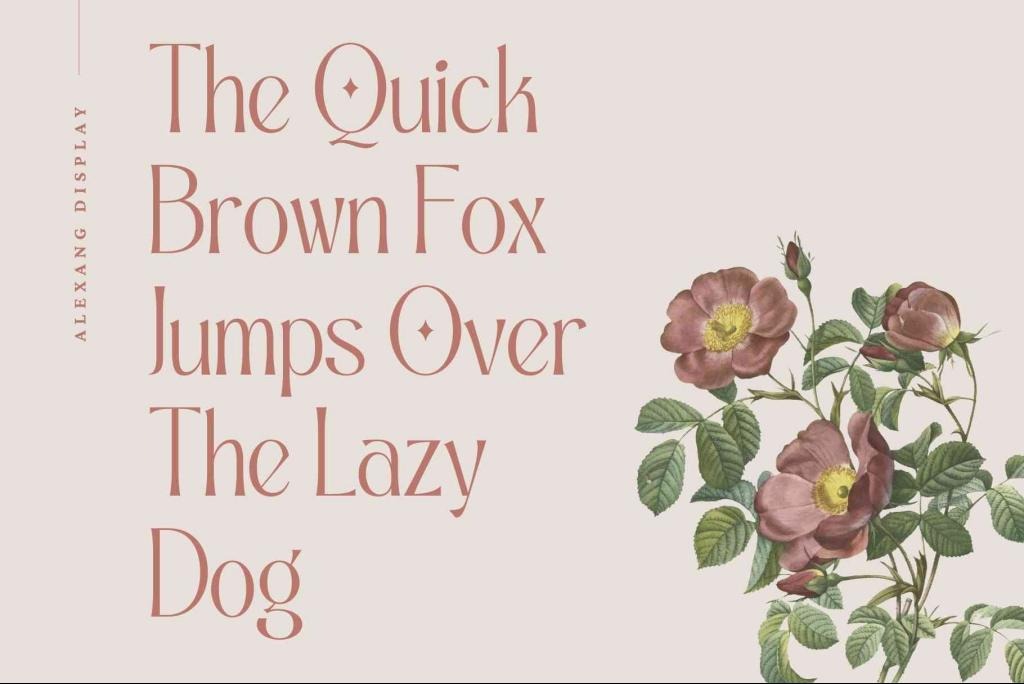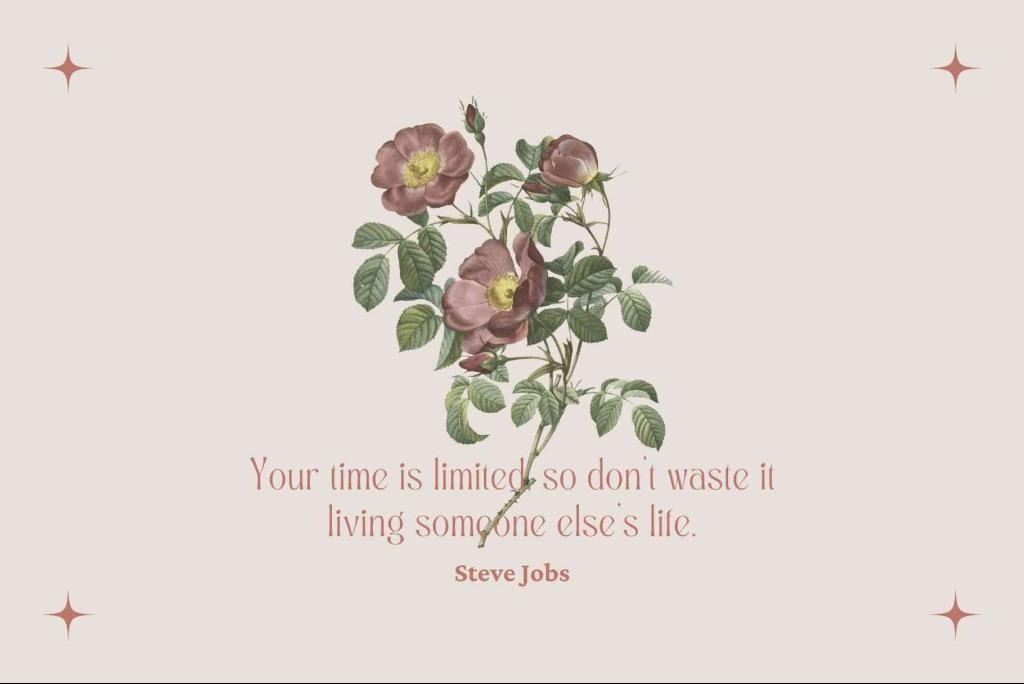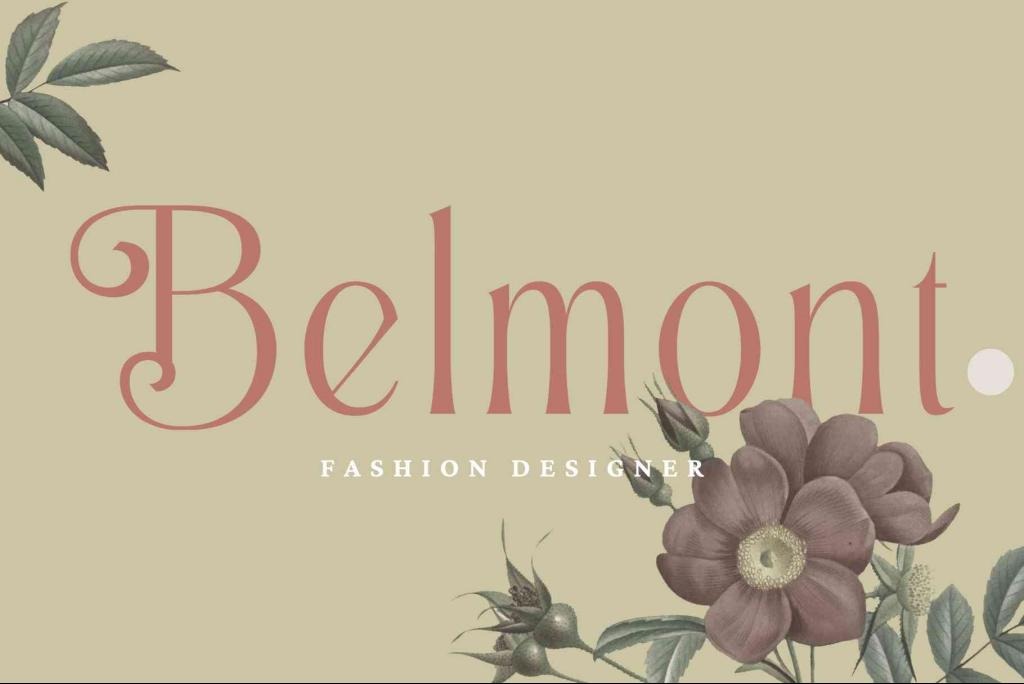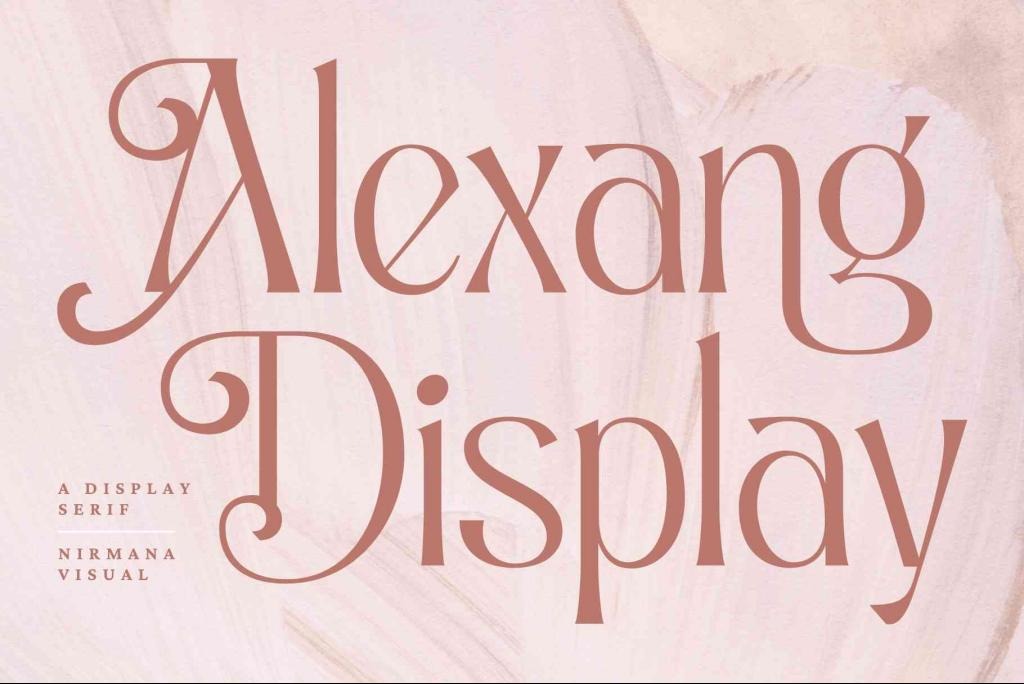
Alexang Serif Font
This is modern serif typeface with elegance and classiness touch. It can be modern vintage serif in the same time. It offers a beautiful typographic harmony for a diversity of design projects, including logos & branding, social media posts, advertisements & product design.